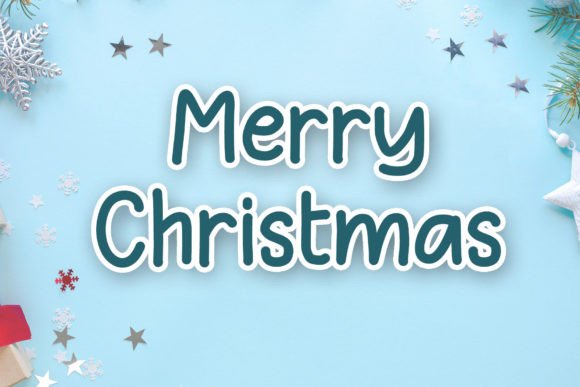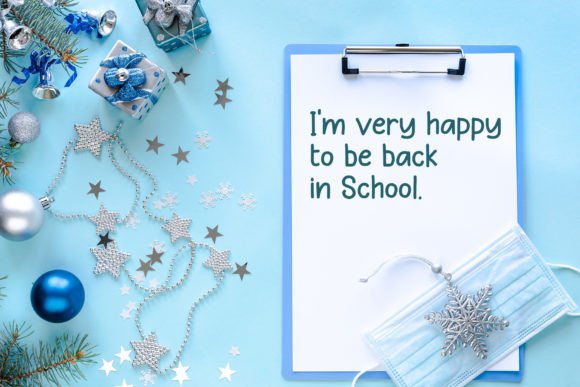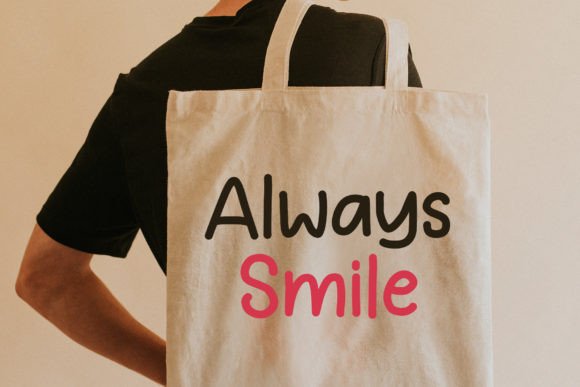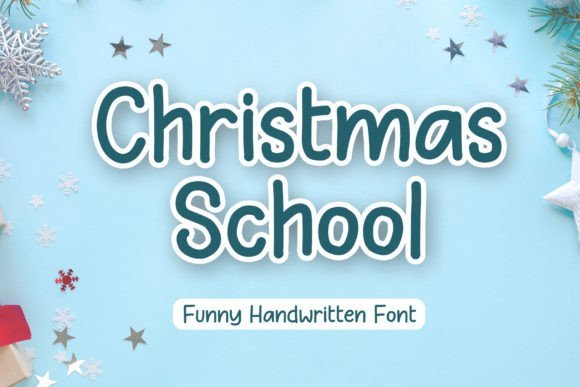
Introduction to Christmas School Font
Christmas School is a fabulous, elegant, and modern display font that’ll engage your audience and make your branding stand out.
This stylish font can be used for a host of different content needs and projects Perfect for social media branding projects, fashion designs, printed quotes, or even as a stylish text overlay to any background image and many more.
Christmas School Font offers exceptional quality and versatility, making it a valuable addition to your design toolkit. Whether you’re creating for personal projects or commercial use, Christmas School Font delivers professional results.